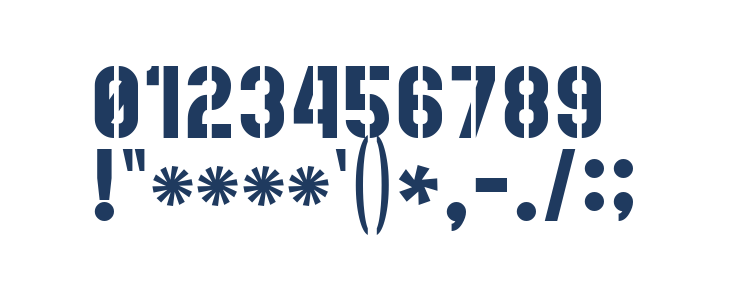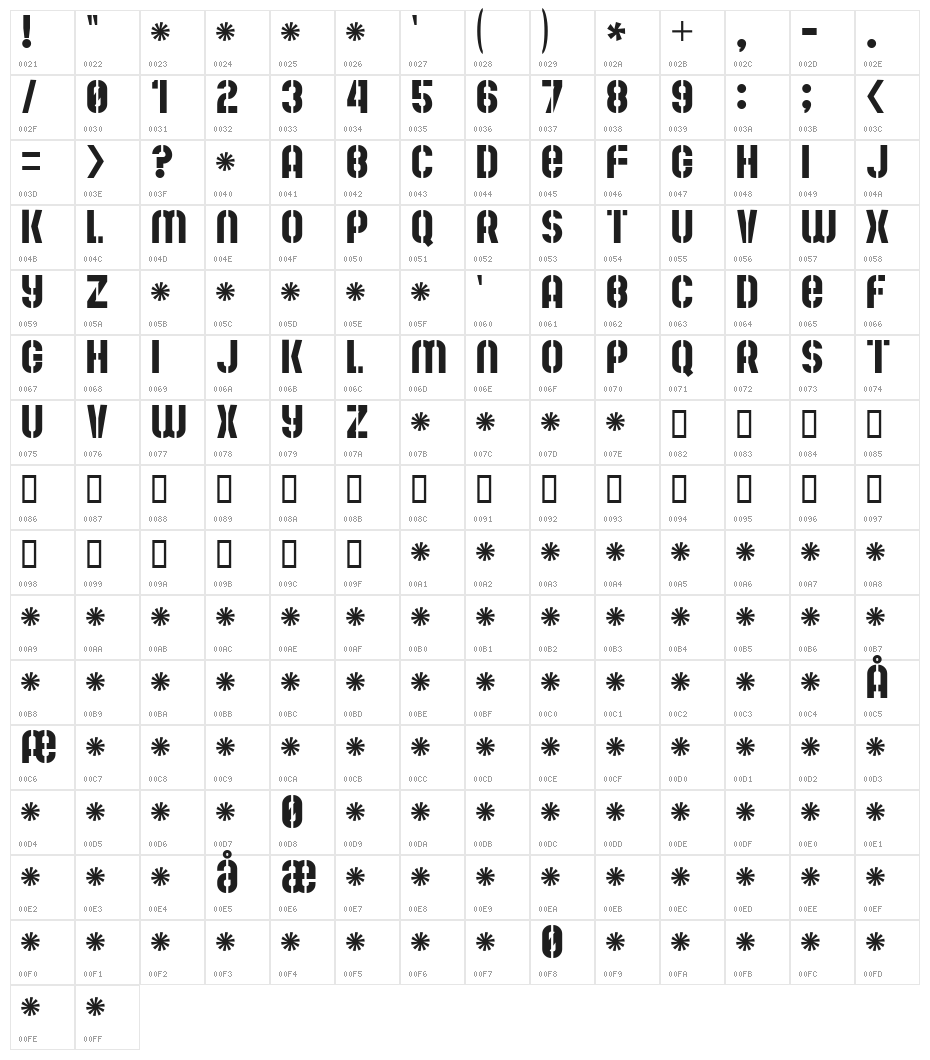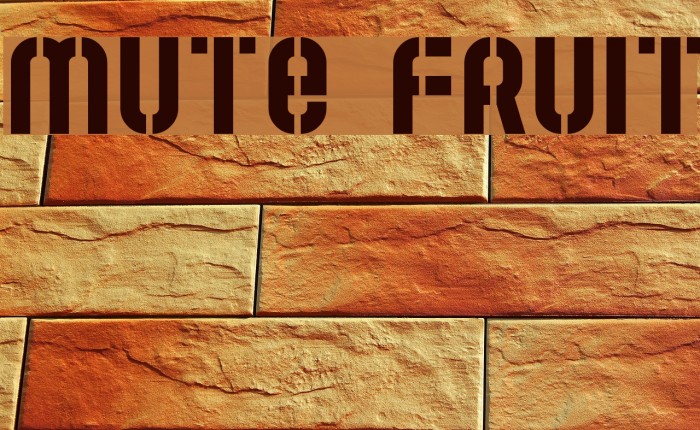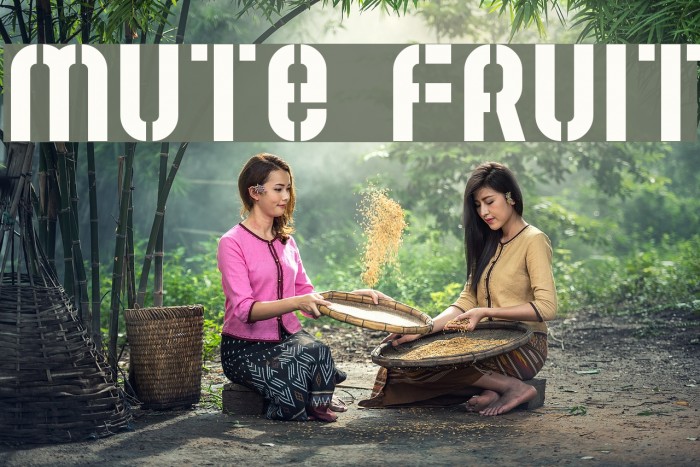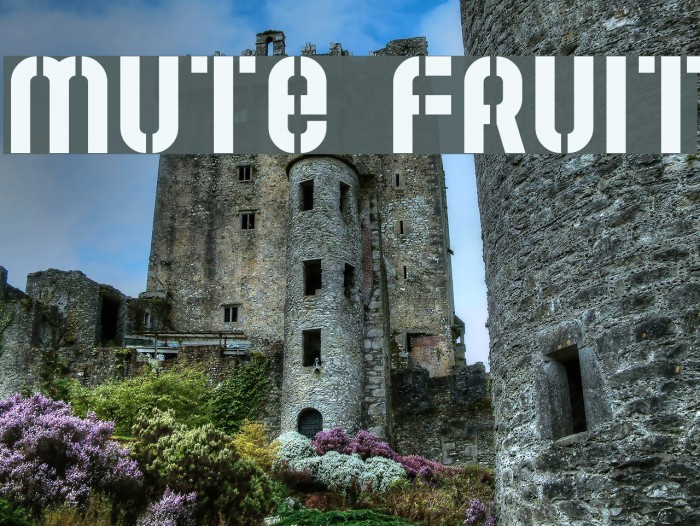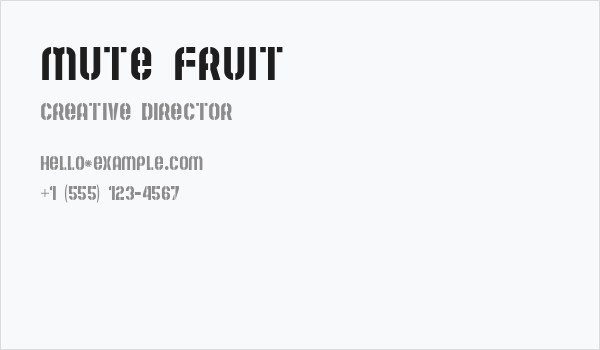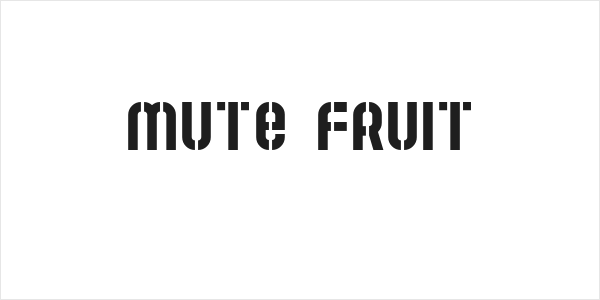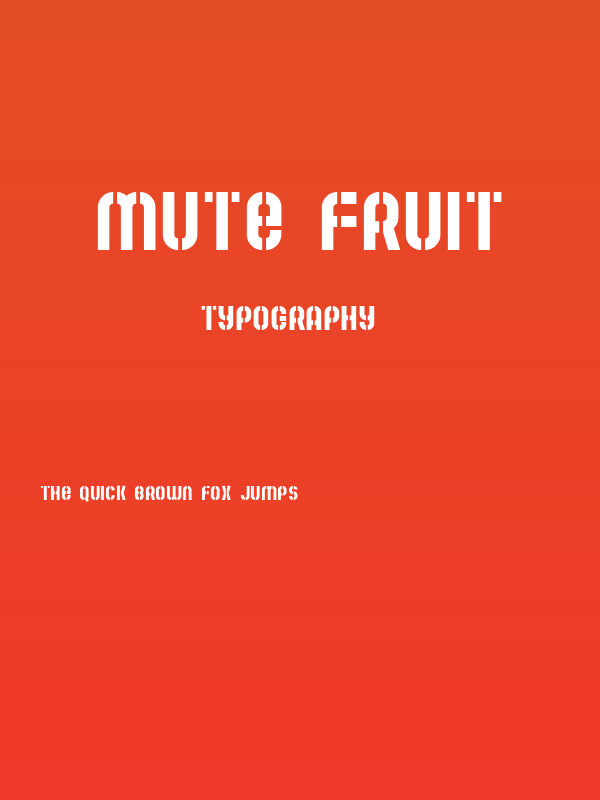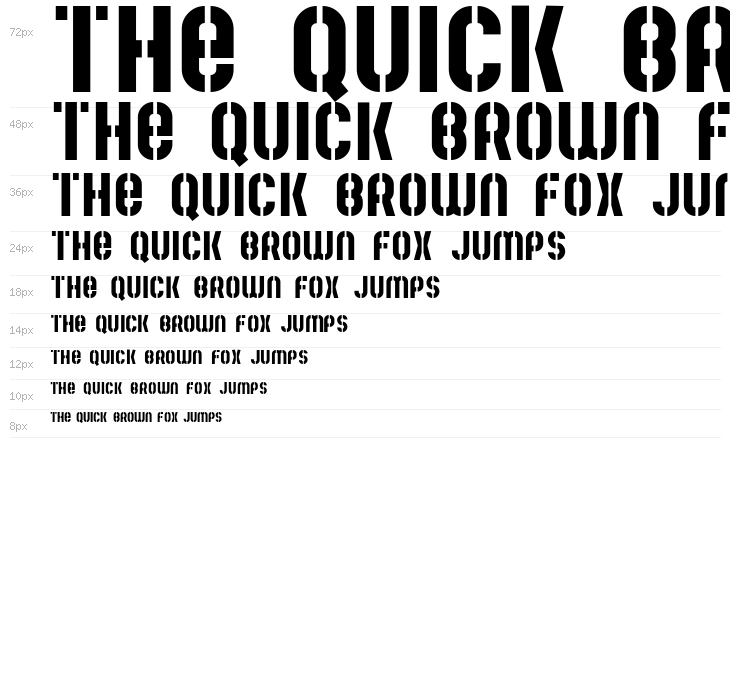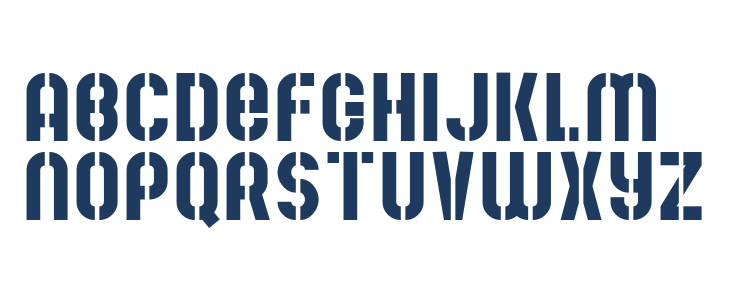
Mute Fruit Font
Mute Fruit Description
This font features a bold, geometric design with a distinct stencil-like appearance. Each character is crafted with precision, showcasing a modern and industrial aesthetic. The uppercase letters are particularly striking, with consistent stroke widths and sharp angles that create a sense of strength and stability. The numbers and special characters maintain this cohesive style, making the font versatile for various design applications. Its unique cut-out elements add an intriguing visual interest, making it stand out in any project.
| Proposed Projects | Ideal for branding, posters, signage, and any project requiring a strong, modern look. |